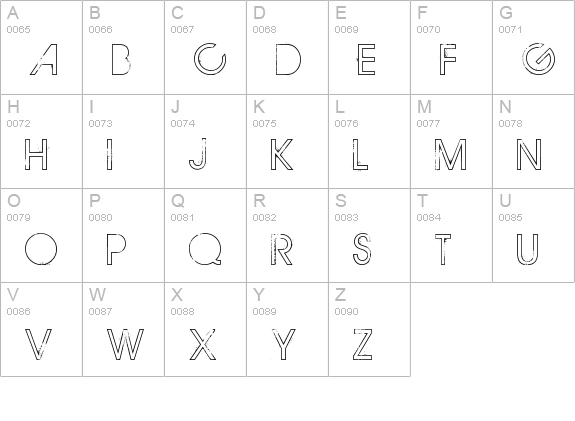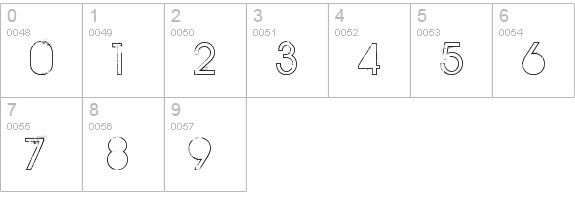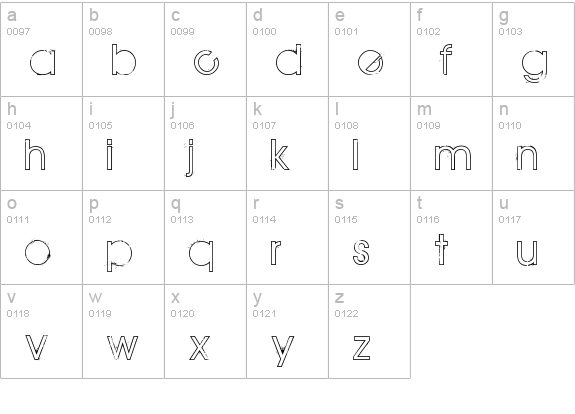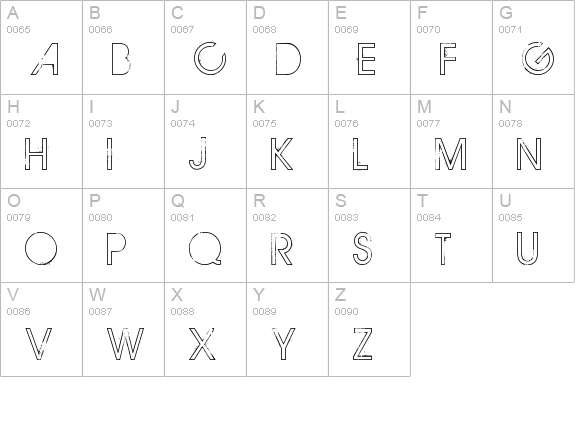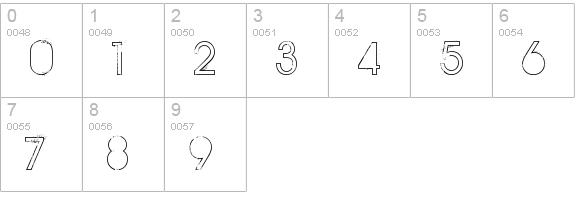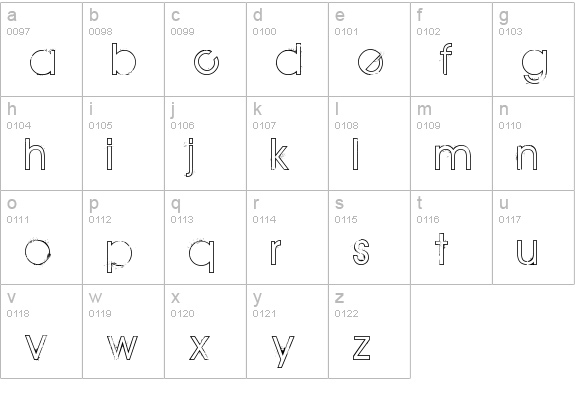
THE MAPLE ORIGINS Font Details
Introducing THE MAPLE ORIGINS font, a captivating and versatile typeface that exudes elegance and sophistication. With its unique design inspired by nature, this font is perfect for adding a touch of charm to any project. THE MAPLE ORIGINS font features delicate curves and intricate details that create a warm and inviting feel. What sets THE MAPLE ORIGINS font apart is its seamless blend of traditional and modern elements, making it suitable for a wide range of design applications. Whether you're working on a branding project, packaging design, or wedding invitations, this font will elevate your work to new heights. And the best part? THE MAPLE ORIGINS font is available for free download at FontsMarket.com. So go ahead and add this stunning font to your collection today and watch your designs come to life with a touch of elegance and charm.